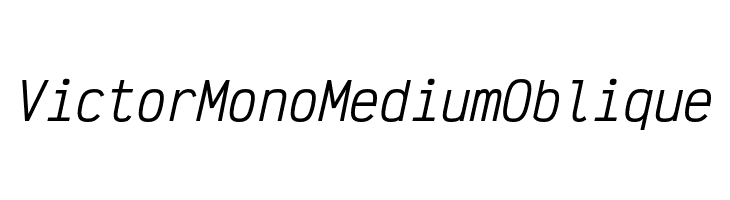
( Fonts by Rune Bjørnerås )
A modern, monospaced font with a clean and geometric design, perfect for coding.
A modern, monospaced italic font with clean lines and uniform width.
( Fonts by Craft Supply Co - Personal-use only. For commercial use please contact owner. )
A classic serif font with bold, elegant curves and a timeless design.
( Fonts by Don Daskalo - Personal-use only. For commercial use please contact owner. )
A geometric, monospaced font with a modern and structured design.